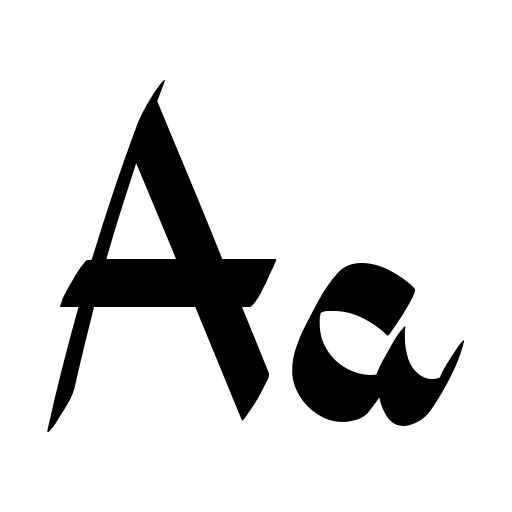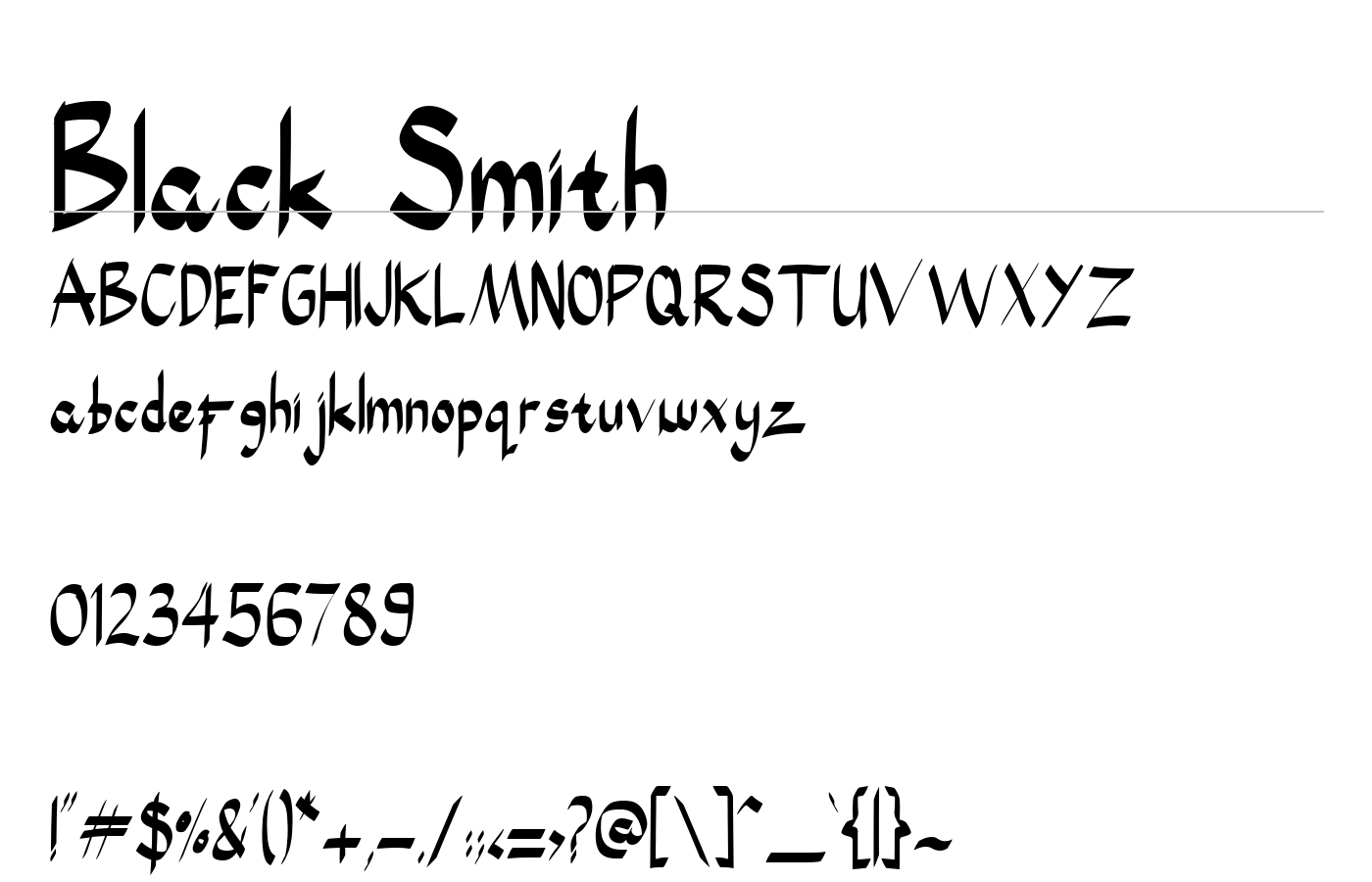
Black Smith is a distinctive serif font with a hand-crafted, gothic-inspired style that features sharp, angular strokes and high contrast between thick and thin lines. Its uneven, slightly condensed letterforms give it a dramatic and edgy feel, making it ideal for creative branding, posters, and headlines that seek a bold, artistic statement. This font works well where a unique, vintage yet modern flair is desired, especially in projects looking to evoke craftsmanship and drama.
Black Smith Font
About Black Smith Font
| Font family | Black Smith Font |
| Designer | Muhammad Isa Sulaiman |